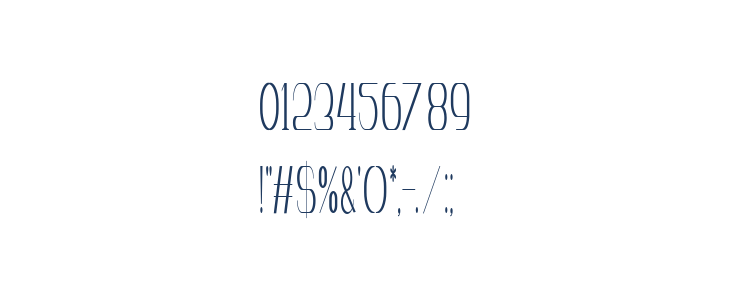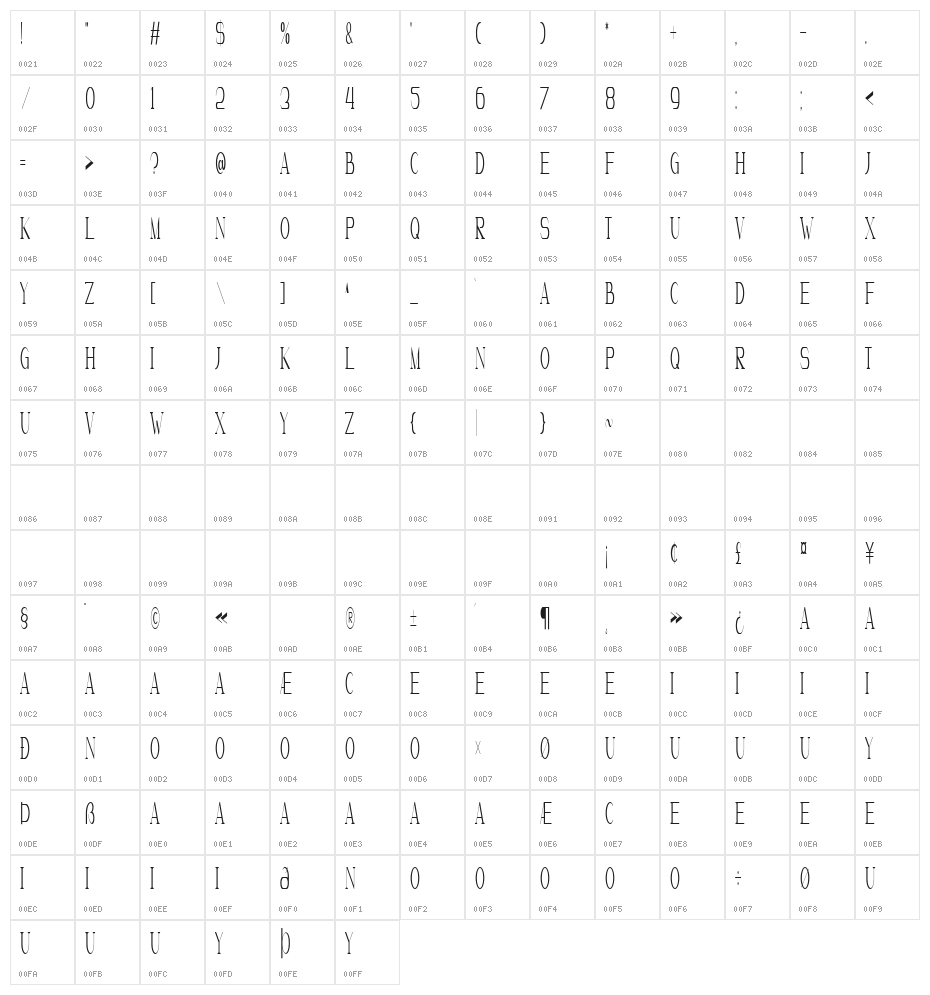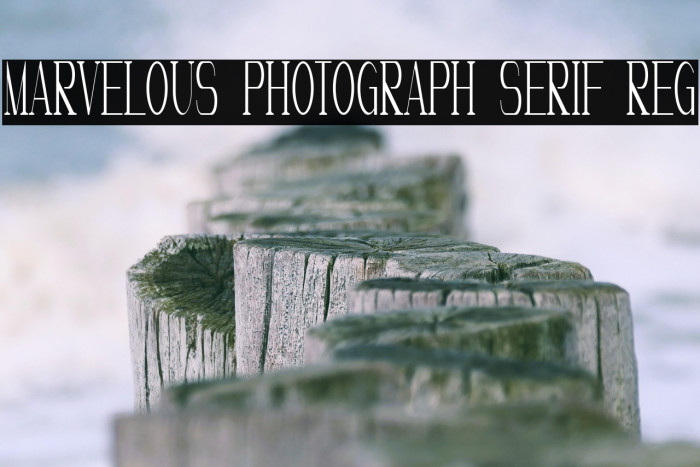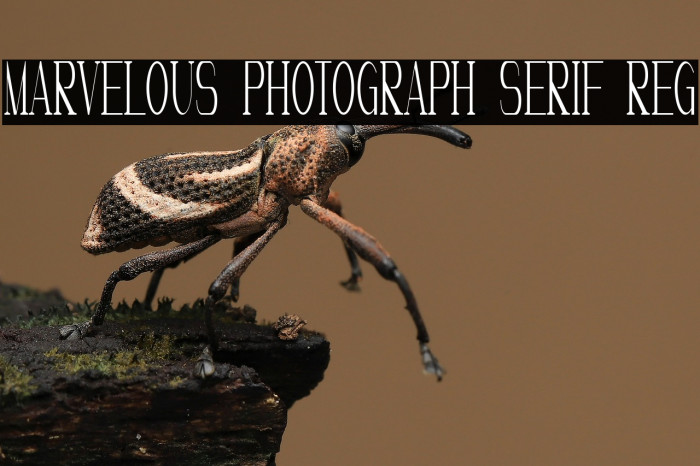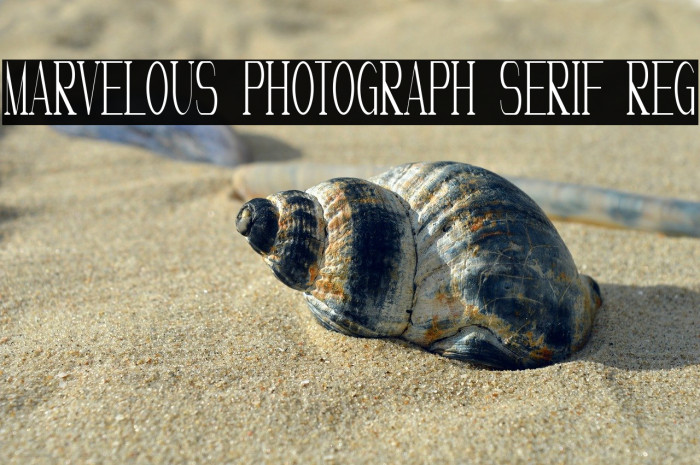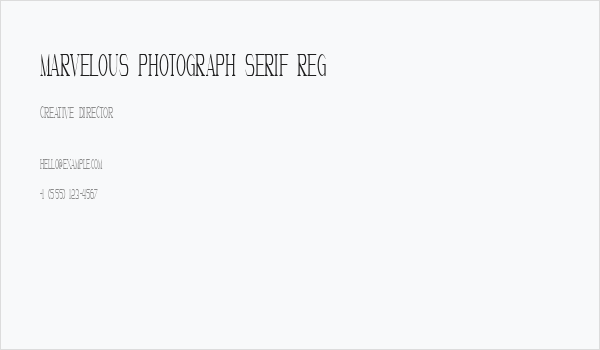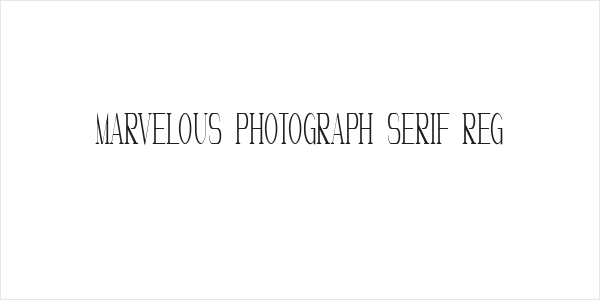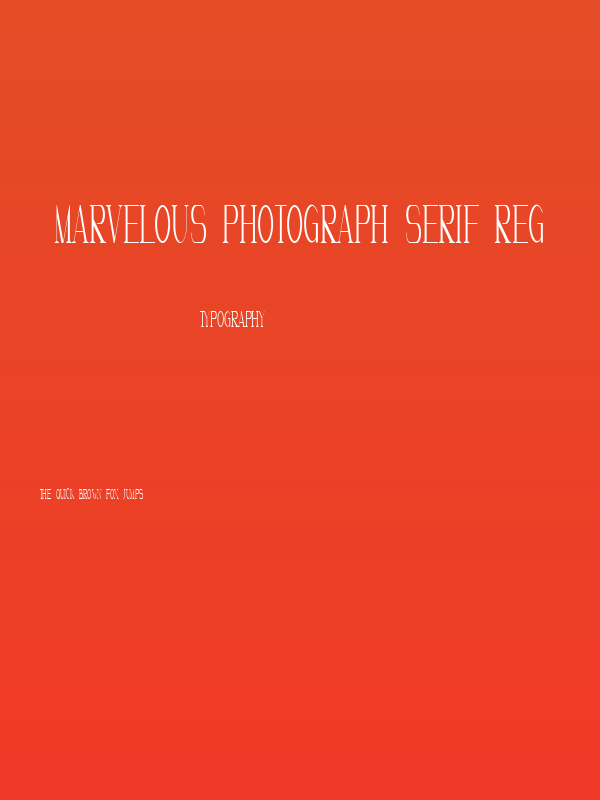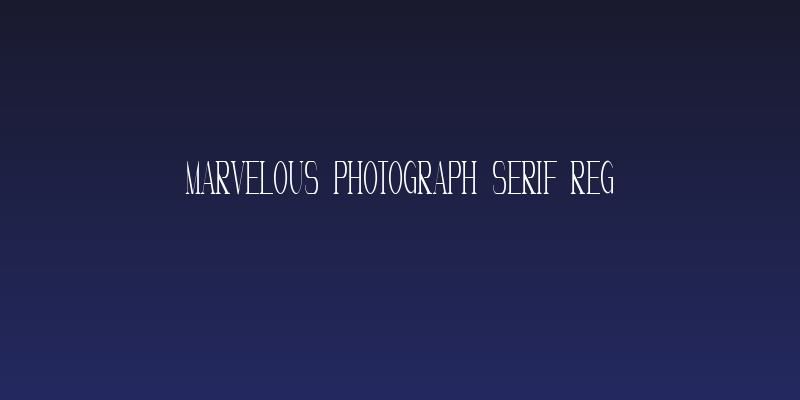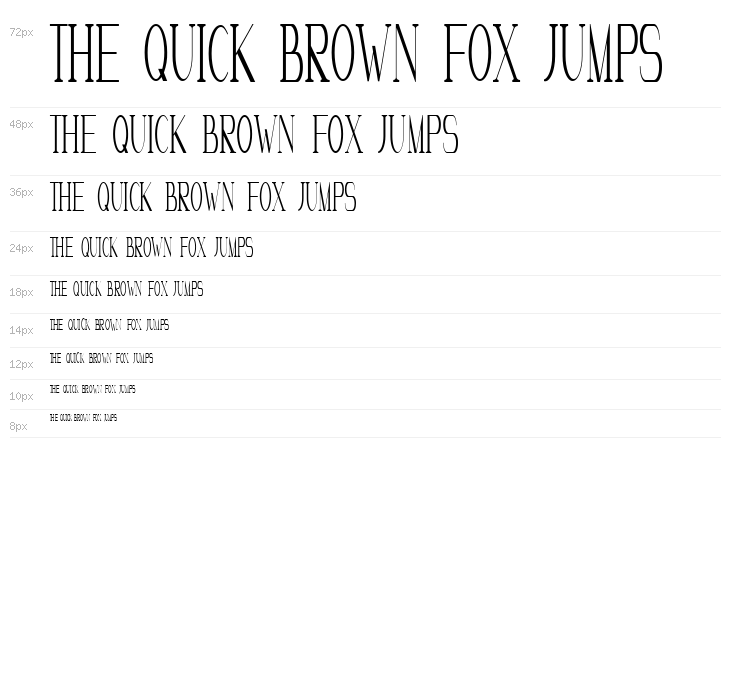
Marvelous Photograph Serif Reg Font
Marvelous Photograph Serif Reg Description
This font presents a sophisticated serif style with a modern twist. The characters are tall and elegant, featuring thin, elongated serifs that add a touch of refinement. The uppercase letters are particularly striking, with a consistent height and a slight contrast in stroke thickness that enhances readability. The lowercase letters maintain the same elegance, with a smooth flow that complements the uppercase set. Numbers are clear and distinct, making them suitable for both display and text settings. Special characters are well-integrated, maintaining the overall aesthetic of the font. This font's design is perfect for projects that require a touch of class and sophistication.